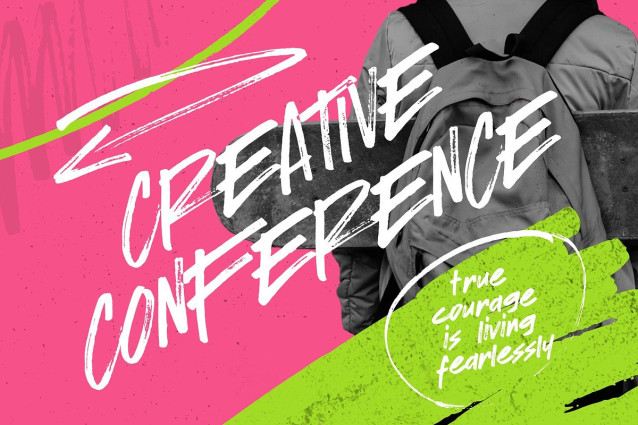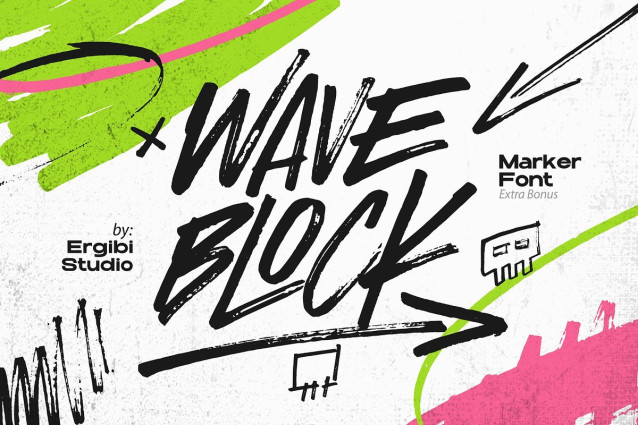
Wave Block Font
Wave Block Font is a raw and energetic typeface, crafted with realistic brush strokes that add a gritty, hand-painted look to your designs. Each letter is infused with texture and bold movement, featuring uppercase, lowercase, numerals, and essential ligatures for versatile styling. Perfect for projects like logos, posters, apparel, album covers, or packaging, Waveblock Brush brings a true urban vibe with an organic, hand-crafted feel. This font is designed to add dynamic personality and authenticity to any work, giving it a street-smart, powerful edge.